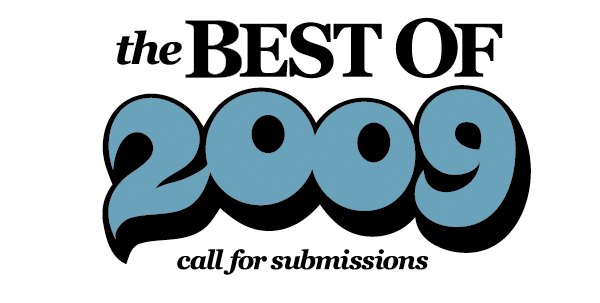
Now that the year is over, the fun begins as we sort through the best and the brightest in Custom Letters for 2009!
We will release our Best of 2009 on Monday, Feb. 1, and we’ll also have a list of our Top 10 favorites, a Custom Letters Person of the Year, and a few other things.
Here was our Best Of at the halfway point of 2009.
The Custom Letters category includes calligraphy, sign painting, graffiti, stone carving, digital lettering, hand lettering, paper sculpture, and original type design. It could also involve making letters with sticks and berries, or carving letters into a tree. It’s an elastic category.
The Custom, in this instance, means built from scratch; we aren’t looking for customization—a type treatment or 3d treatment—of an existing typeface. It can be 3D if it’s built from scratch, and not simply an extrusion of an existing typeface.
• We are aware of certain styles that get copied. If you’re aping the current Designer of the Moment, we’d ask you to please, find something original to submit.